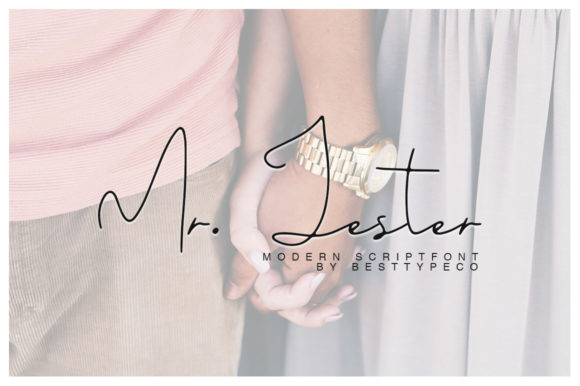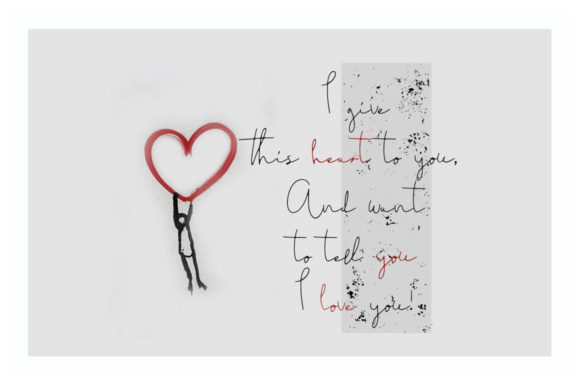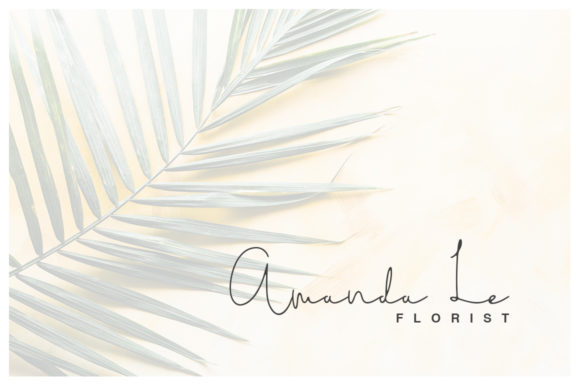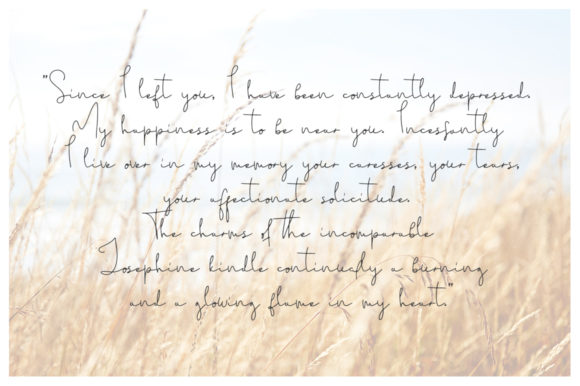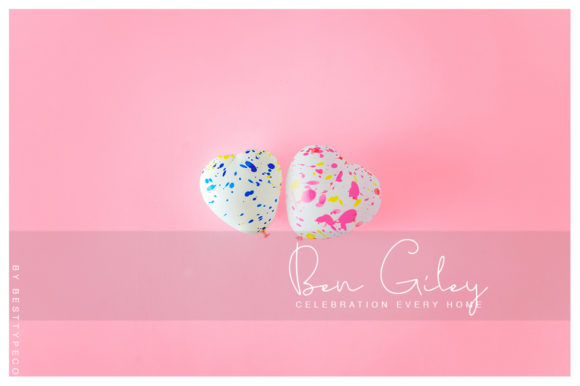
Mr. Jester Font
About Mr. Jester Font
Mr. Jester is a timeless and relaxed handwritten font. Remarkable and unique, this font will make each of your designs come alive!